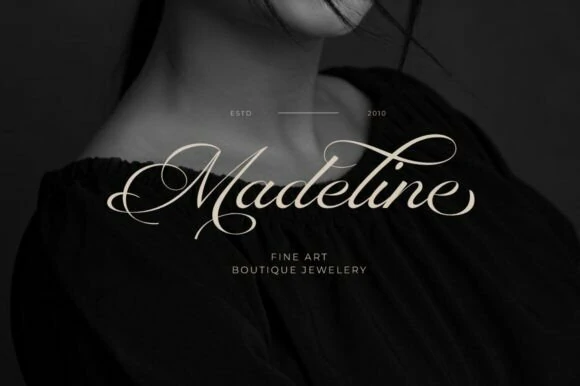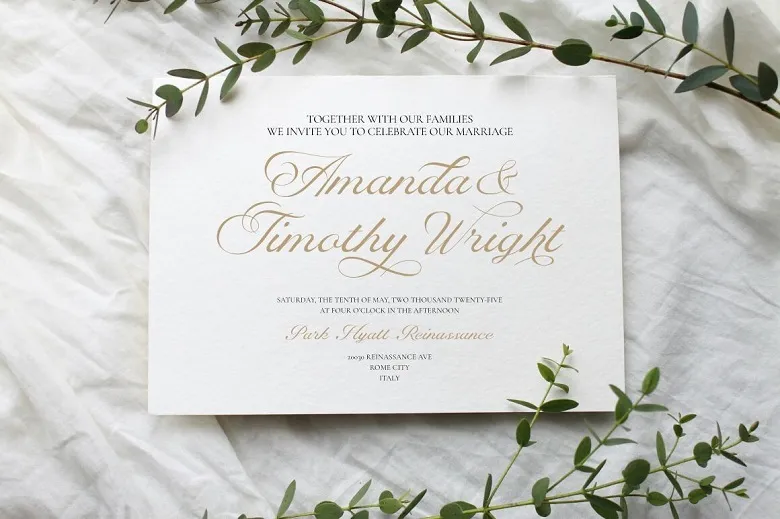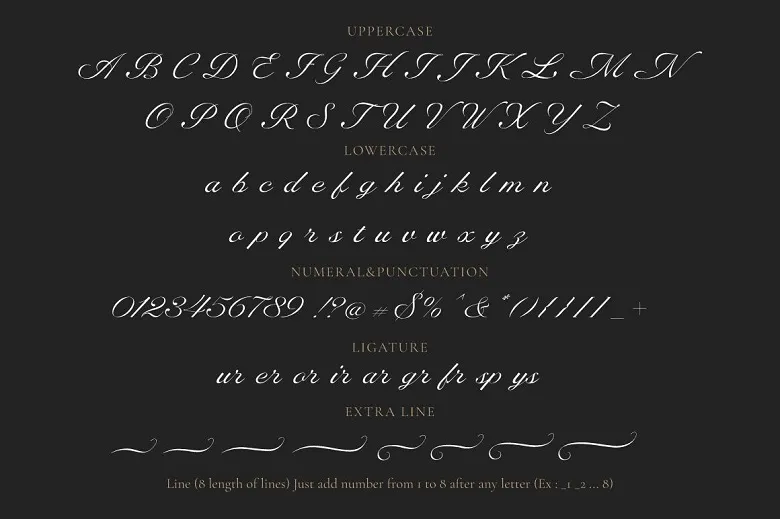
Anchovy Font
RB Anchovy Font
RB Anchovy Font: Elevate Your Designs with Modern Calligraphy Elegance
In the fast-evolving world of design, typography plays a pivotal role in shaping a project’s identity. Among the newest additions to the creative landscape is the RB Anchovy Font, a calligraphy script typeface designed to infuse luxury and sophistication into any design. Whether you’re working on a tech startup logo, a galactic-themed poster, or a documentary title, RB Anchovy’s fluid lines and refined aesthetics promise to elevate your work from ordinary to extraordinary.
Rb Anchovy Calligraphy Script Font
RB Anchovy Font
Why RB Anchovy Font Stands Out
RB Anchovy is more than just a font—it’s a statement. Designed for modern applications, its smooth, subtle curves and balanced strokes create a harmonious blend of elegance and versatility. Unlike traditional calligraphy fonts that may feel overly ornate or rigid, RB Anchovy adapts seamlessly to contemporary themes. Its delicate swashes and clean finishes add a touch of luxury without overwhelming the viewer, making it ideal for projects that demand both professionalism and creativity.
One of the font’s standout features is its adaptability. While many script fonts struggle to fit diverse design contexts, RB Anchovy thrives in multiple niches. From futuristic tech interfaces to cinematic book covers, its versatility ensures it remains a go-to choice for designers aiming to make an impact.
Applications Across Industries
RB Anchovy Font
RB Anchovy’s design philosophy centers on universality. Here’s how it enhances various projects:
1. Technology & Digital Design: In an era dominated by sleek gadgets and apps, RB Anchovy’s modern curves align perfectly with tech branding. Use it for app logos, website headers, or promotional materials to convey innovation and style.
2. Entertainment & Media: Movie posters, documentary titles, and video game interfaces benefit from the font’s dramatic flair. Its cinematic appeal adds depth to storytelling, whether you’re promoting a sci-fi blockbuster or a historical documentary.
3. Branding & Marketing: For businesses seeking a premium identity, RB Anchovy elevates logos, packaging, and social media content. Its polished look helps brands stand out in competitive markets.
4. Personal Projects: Wedding invitations, art prints, or hobbyist designs gain a professional edge with this font. Even casual creators can achieve high-end results effortlessly.
How RB Anchovy Enhances Creativity
RB Anchovy Font
Designers often face the challenge of balancing uniqueness with readability. RB Anchovy solves this by offering a script that’s both artistic and legible. Its characters flow naturally, avoiding the cramped or overly decorative pitfalls of lesser fonts. This balance is crucial for headlines, titles, or logos where clarity is as important as aesthetics.
Additionally, the font’s subtlety allows it to pair well with minimalist or bold design elements. Combine it with geometric sans-serifs for a modern contrast, or layer it over cosmic backgrounds for a space-themed project—the possibilities are endless.
Conclusion: A Font Built for Tomorrow’s Designers
RB Anchovy Font isn’t just a tool; it’s an investment in your creative future. By merging timeless calligraphy charm with modern functionality, it empowers designers to push boundaries while maintaining sophistication. Whether you’re a seasoned professional or a hobbyist, this font offers the flexibility to transform ideas into visually stunning realities.